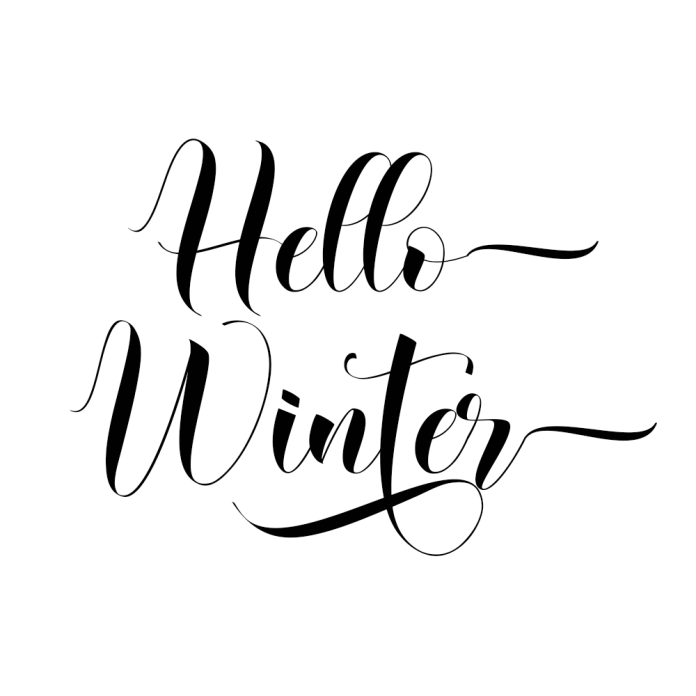
Hello Winter is a sweet and friendly handwritten font. Fresh and casual, this font is ideal for writing wedding invitations, cards, or any other design that might need a lovely touch.